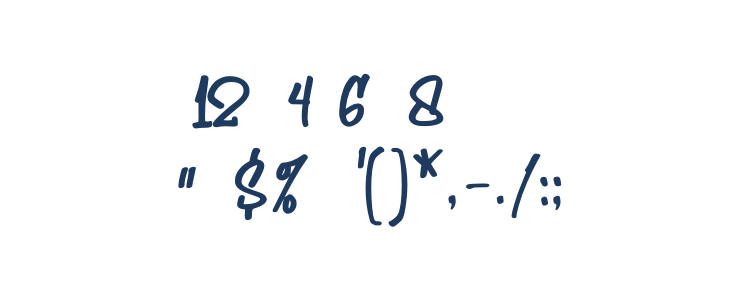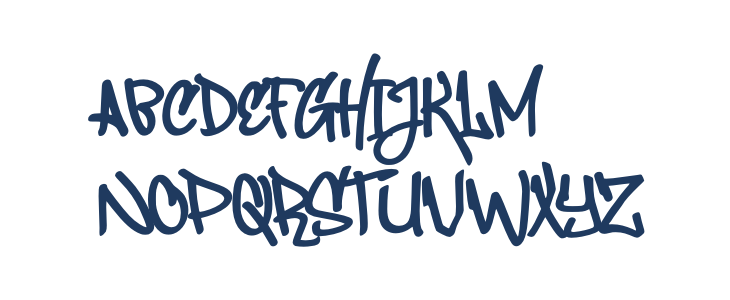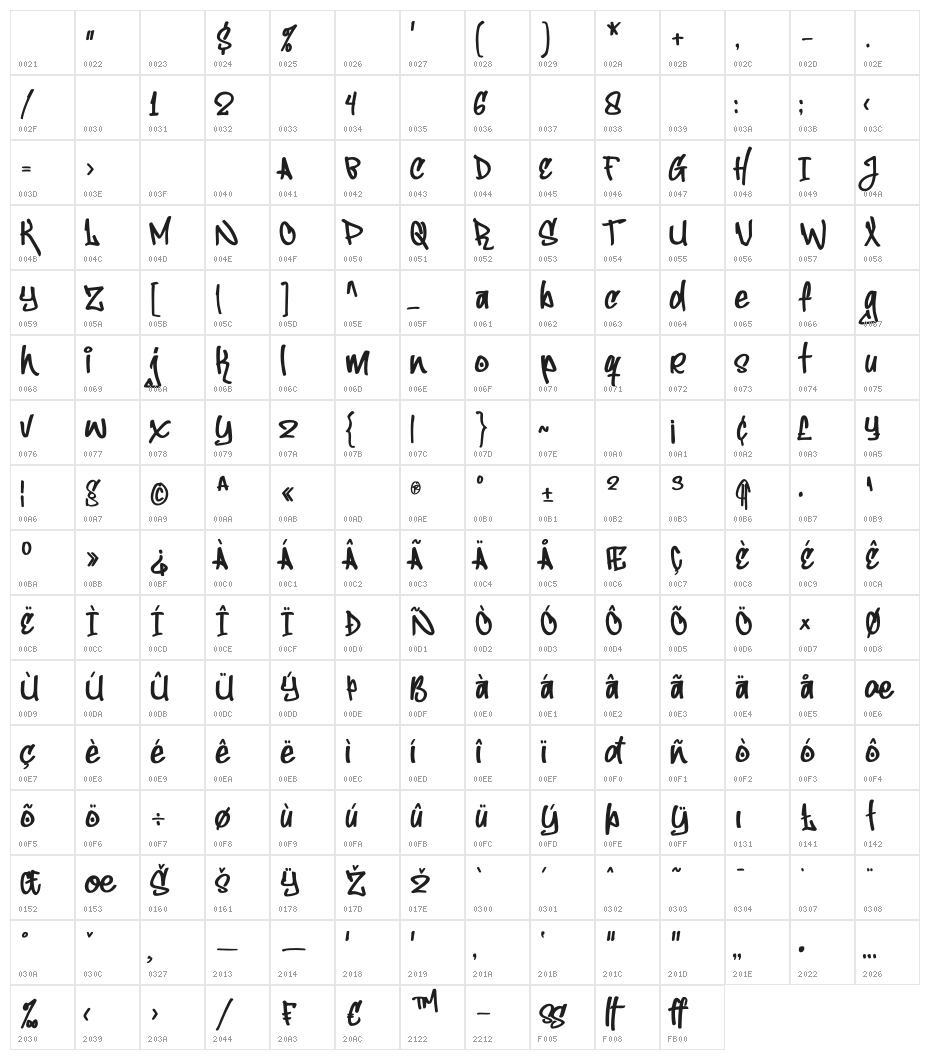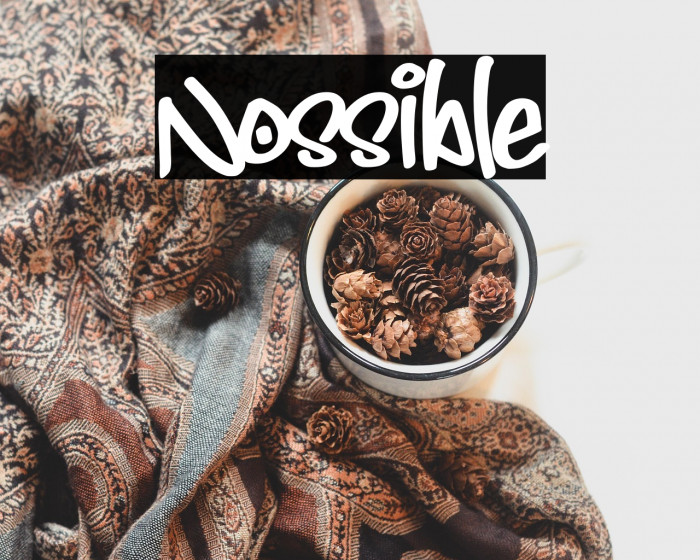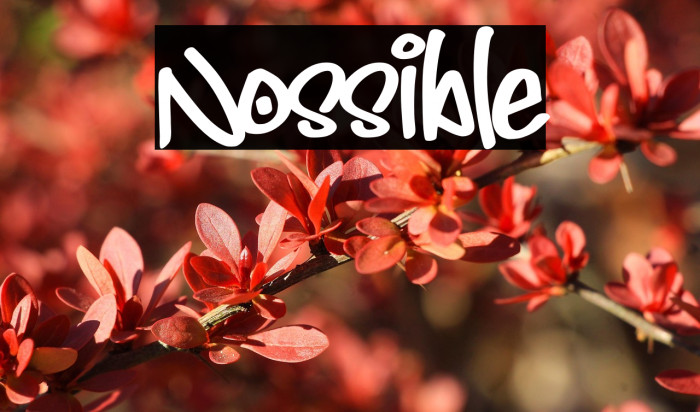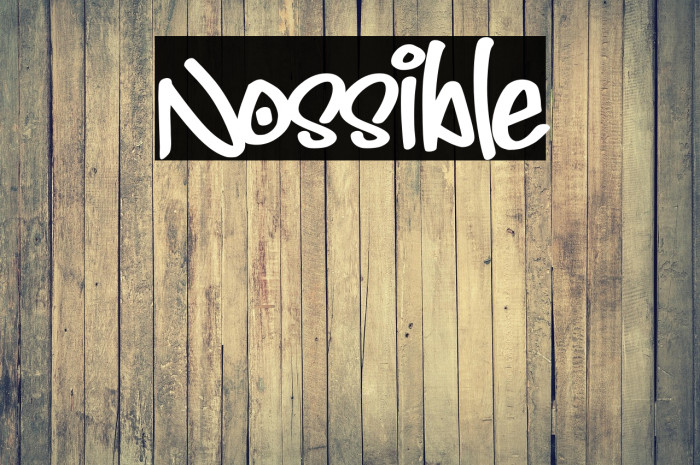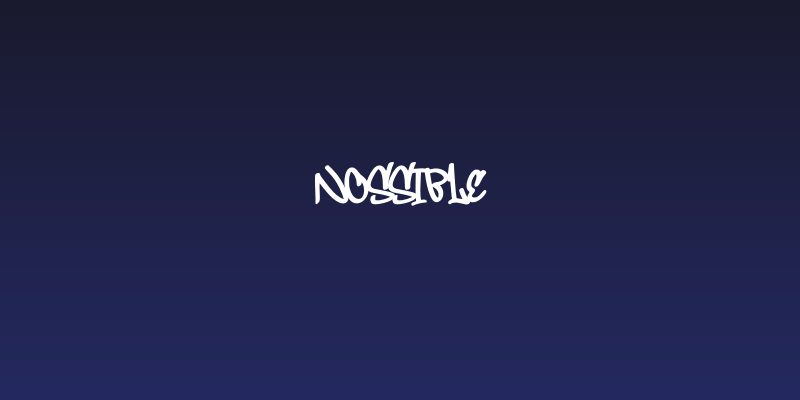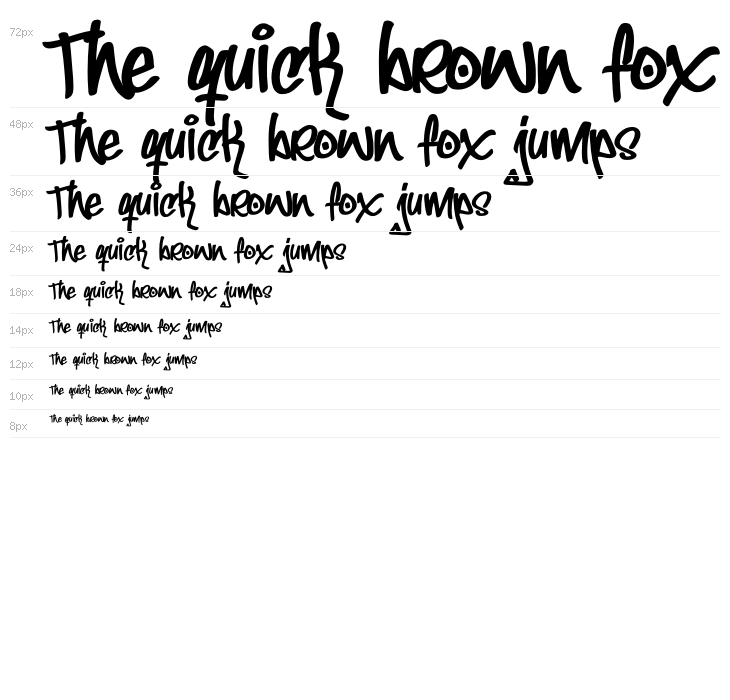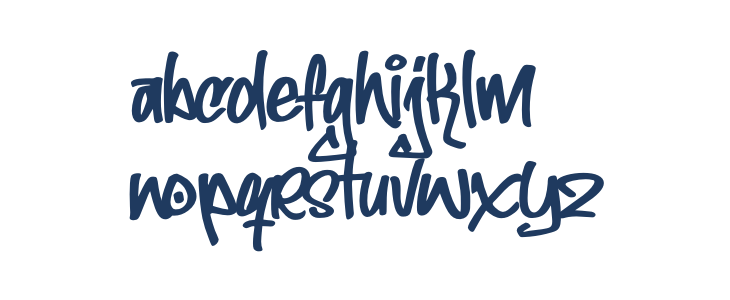
Nossible Font
Nossible Description
A bold, handwritten script font with a graffiti-inspired style, featuring exaggerated ascenders and descenders, variable stroke thickness, and energetic, informal letterforms. The characters are loosely spaced and have a playful, urban feel.
| Overall Style | Decorative, Urban, Graffiti |
| Use Case | Logos, Headlines, Posters, Informal branding |
| Proposed Projects | Street art posters, urban branding, event flyers, music album covers, youth-oriented advertising. |